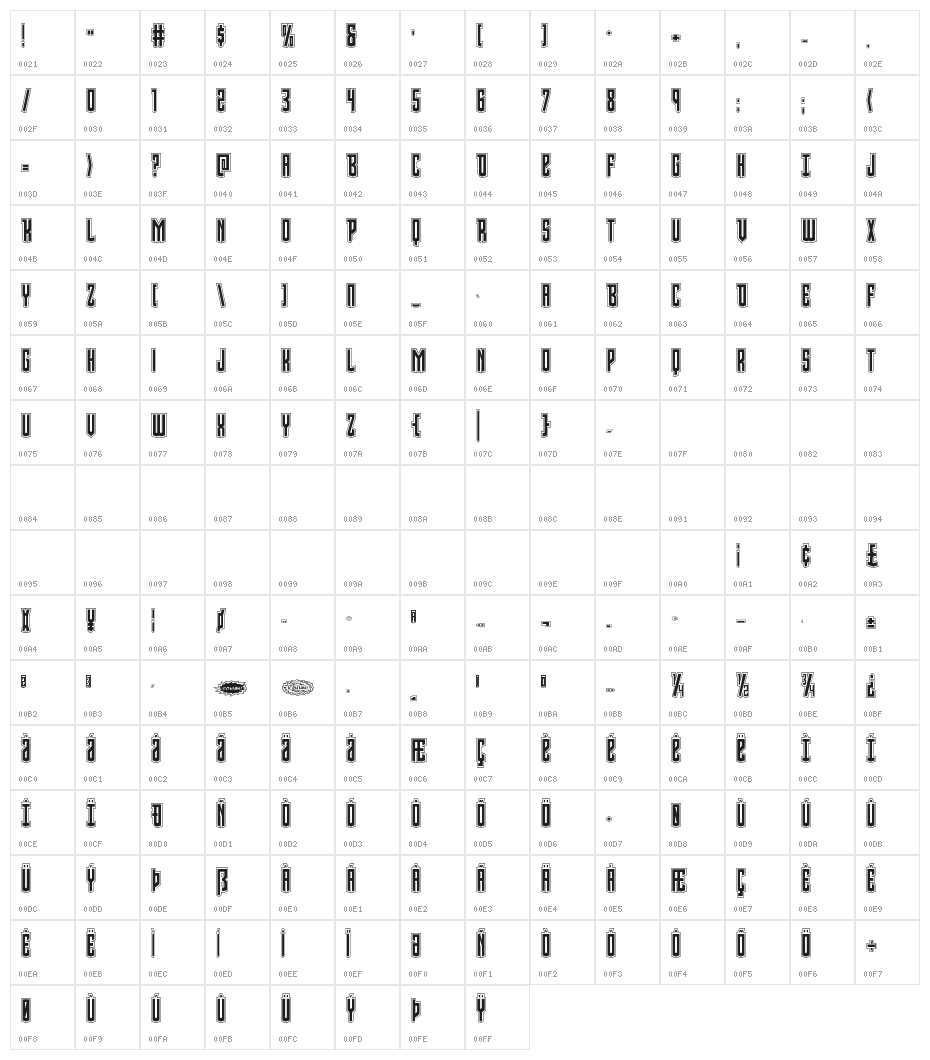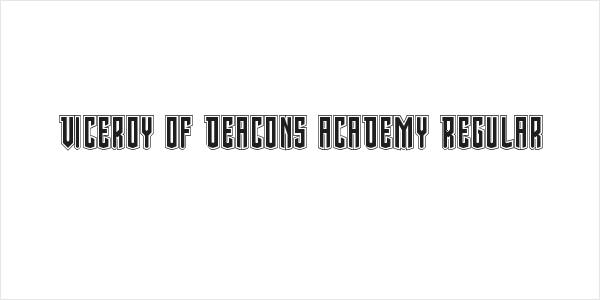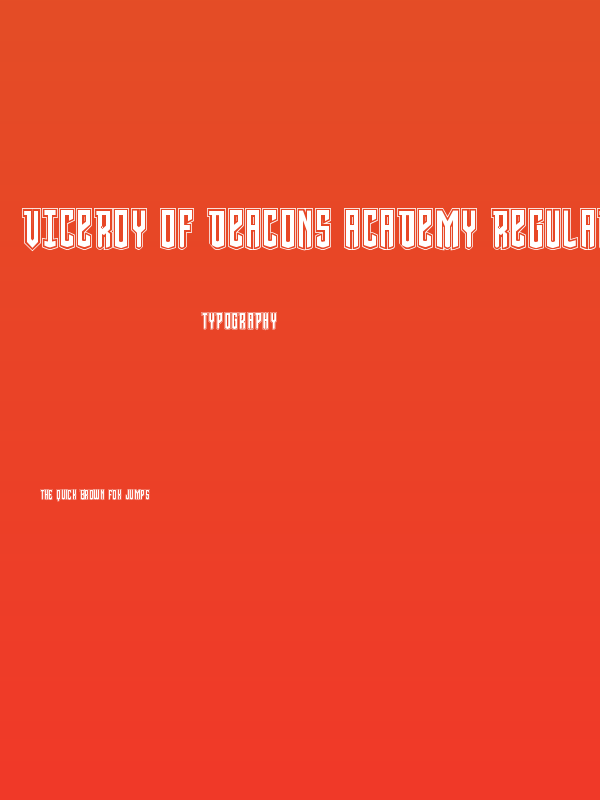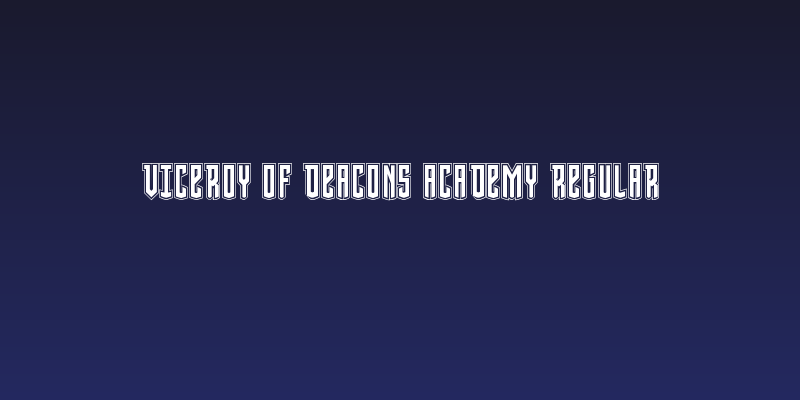
Viceroy of Deacons Academy Regular Font
Viceroy of Deacons Academy Regular Description
This font features a bold, decorative style with a strong presence. The characters are outlined, giving them a three-dimensional effect that stands out prominently. The uppercase letters are uniform in height and width, creating a cohesive look across the alphabet. The numbers and special characters maintain the same bold, outlined style, ensuring consistency throughout. This font's design is reminiscent of vintage signage or sports team logos, with a modern twist that makes it suitable for contemporary use. The overall aesthetic is both eye-catching and versatile, making it ideal for projects that require a bold statement.
Overall StyleVintage
Proposed ProjectsIdeal for sports team logos, vintage-inspired posters, and bold signage.